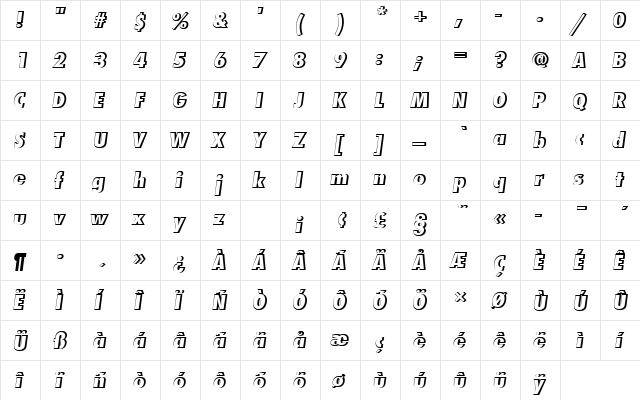
FuturaTExtBolConOblRe1 Regular
Design Context for FuturaTExtBolConOblRe1 Typeface
FuturaTExtBolConOblRe1 channels digital-age aesthetics through its sharp, structured letterforms — ideal for brands that want to signal innovation.
Pro Tip: Use FuturaTExtBolConOblRe1 in combination with a neutral sans for body text. Let it define the brand voice in headlines while keeping reading comfortable elsewhere.